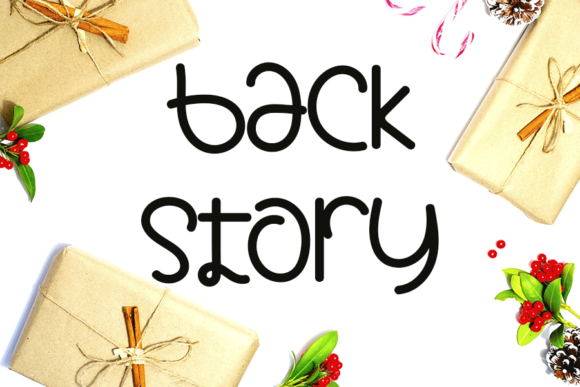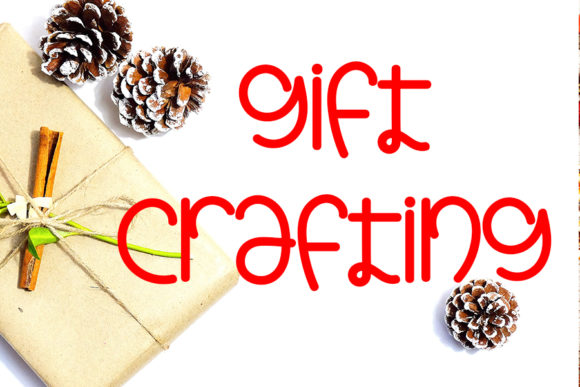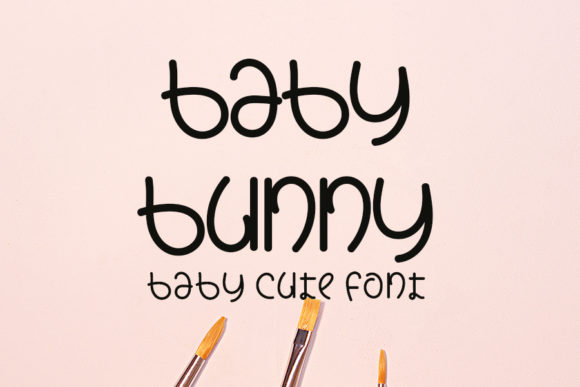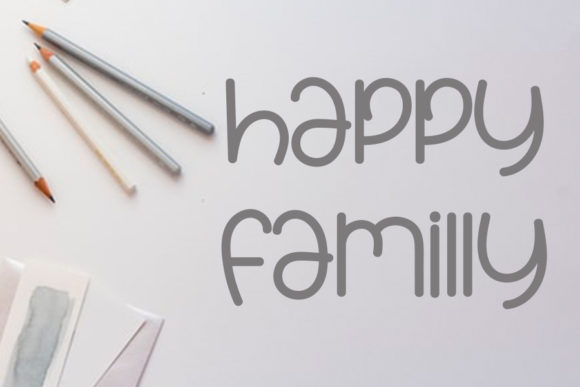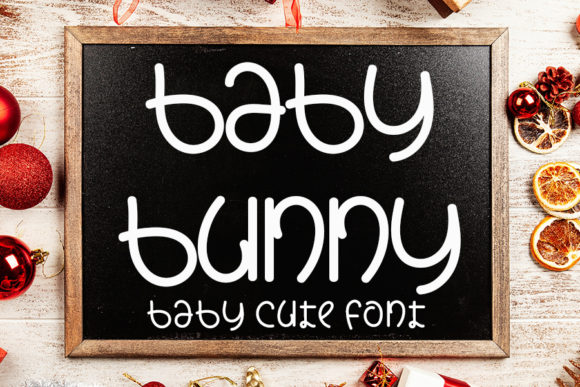
Baby Bunny Font: The Ultimate Display Font for Joyful Designs
Are you tired of using the same old fonts in your designs? Do you want to add a touch of whimsy and playfulness to your creative projects? Look no further than the Baby Bunny Font! This adorable display font is sure to bring a smile to your face and make your designs stand out from the crowd.
What is Baby Bunny Font?
Baby Bunny Font is a cute and quirky display font that is perfect for adding a joyful touch to your designs. With its unique and playful lettering style, this font is sure to capture the attention of your audience and leave a lasting impression. Whether you’re a designer, crafter, or DIY enthusiast, Baby Bunny Font is a must-have addition to your font collection.
Characteristics of Baby Bunny Font
So, what makes Baby Bunny Font so special? Here are just a few of its key characteristics:
- Cute and Quirky: Baby Bunny Font is a truly one-of-a-kind font that is sure to bring a smile to your face. Its playful lettering style is perfect for designs that require a touch of whimsy and fun.
- Display Font: Baby Bunny Font is a display font, which means it’s perfect for headlines, titles, and other large-format text. Its bold and eye-catching style is sure to grab attention and make your designs stand out.
- Joyful Touch: Baby Bunny Font adds an incredibly joyful touch to your designs. Whether you’re creating a children’s party invitation or a fun and playful advertisement, this font is sure to bring a sense of happiness and excitement to your project.
How to Use Baby Bunny Font
So, how can you use Baby Bunny Font in your designs? Here are just a few ideas to get you started:
- Children’s Party Invitations: Baby Bunny Font is perfect for creating adorable children’s party invitations. Use it to create a fun and playful design that will get kids excited for the party.
- Fun and Playful Advertisements: Add a touch of whimsy to your advertisements with Baby Bunny Font. This font is sure to grab attention and make your ad stand out from the crowd.
- Crafting Projects: Baby Bunny Font is perfect for crafters who love to create handmade cards, gift tags, and other paper crafts. Use it to add a personal touch to your projects and make them extra special.
- Social Media Graphics: Use Baby Bunny Font to create fun and playful social media graphics that will grab attention and engage your audience.
Why Choose Baby Bunny Font?
So, why should you choose Baby Bunny Font for your designs? Here are just a few reasons:
- Unique and Playful Style: Baby Bunny Font has a truly unique and playful style that is sure to make your designs stand out.
- Easy to Read: Despite its playful style, Baby Bunny Font is easy to read and understand. This makes it perfect for use in headlines, titles, and other large-format text.
- Versatile: Baby Bunny Font is a versatile font that can be used in a wide range of designs, from children’s party invitations to fun and playful advertisements.